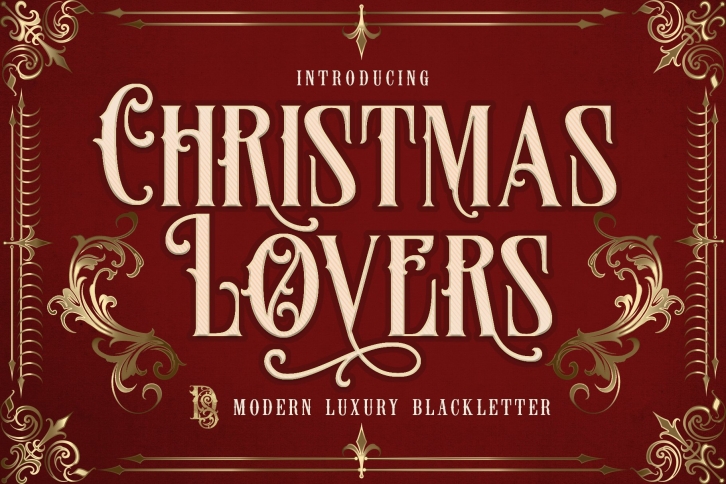
Christmas Lovers is a great font that was designed by dansdesign. Imagine the amount of combinations you can create using this font! The archive is 2.62 MB and it was released on November 24, 2021. Christmas Lovers looks beautiful on wedding invitations, greeting cards, logos, posters, labels, t-shirt designs, logos, business cards and is perfect for use in ink or watercolor works, fashion, magazines, packaging and food menus, children's books and more!